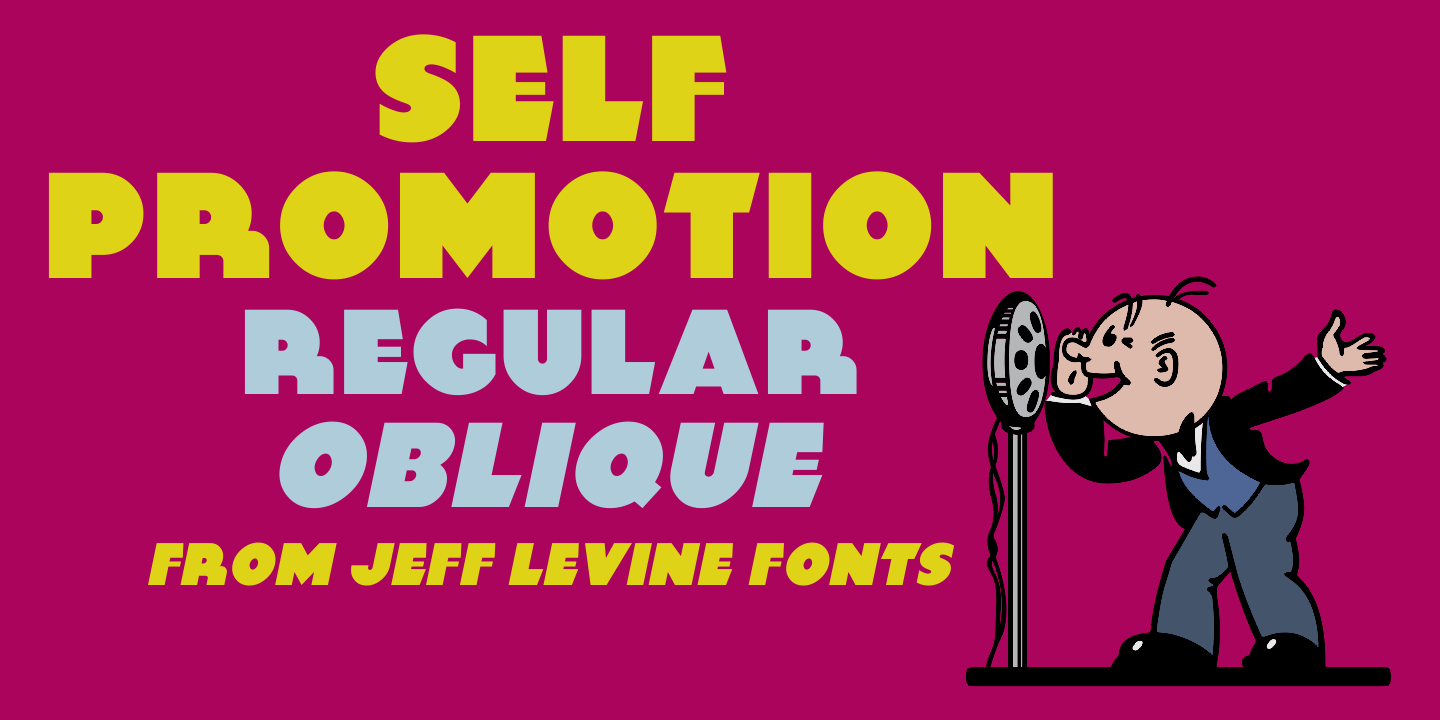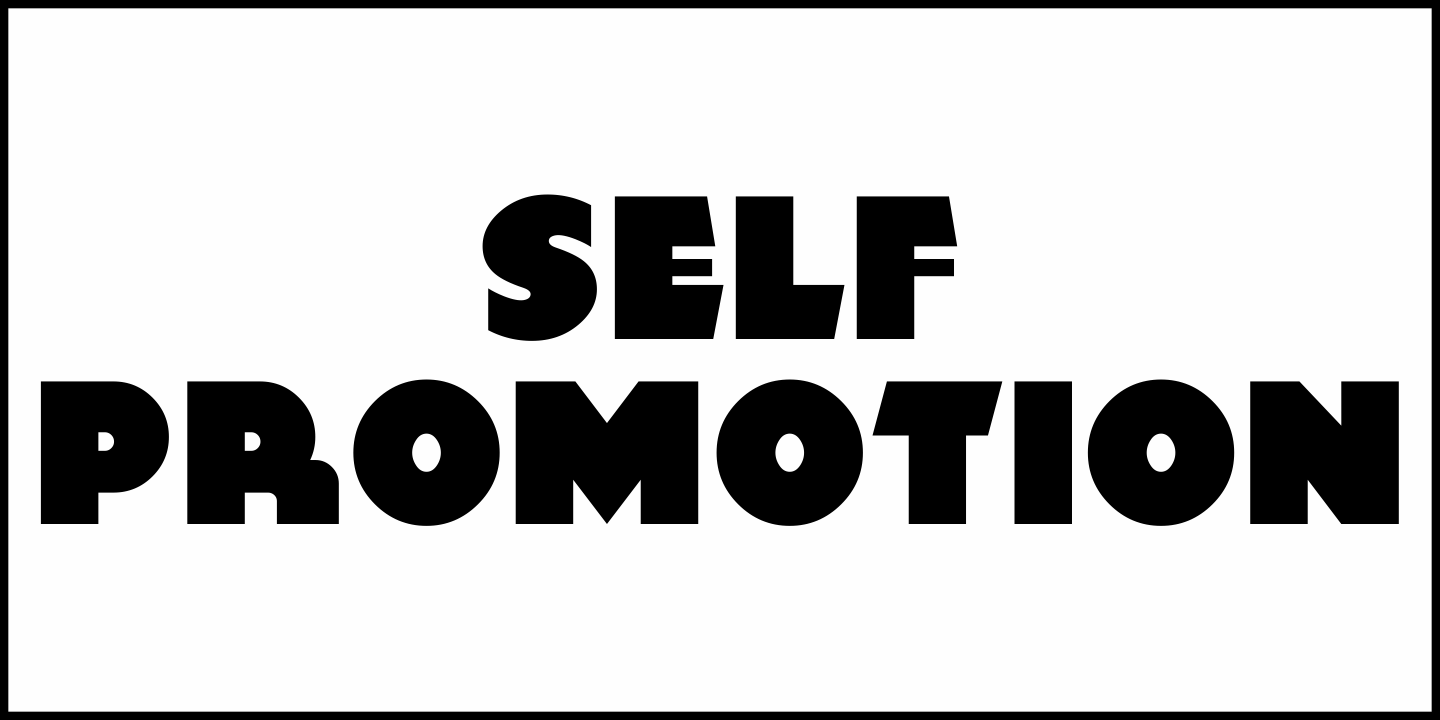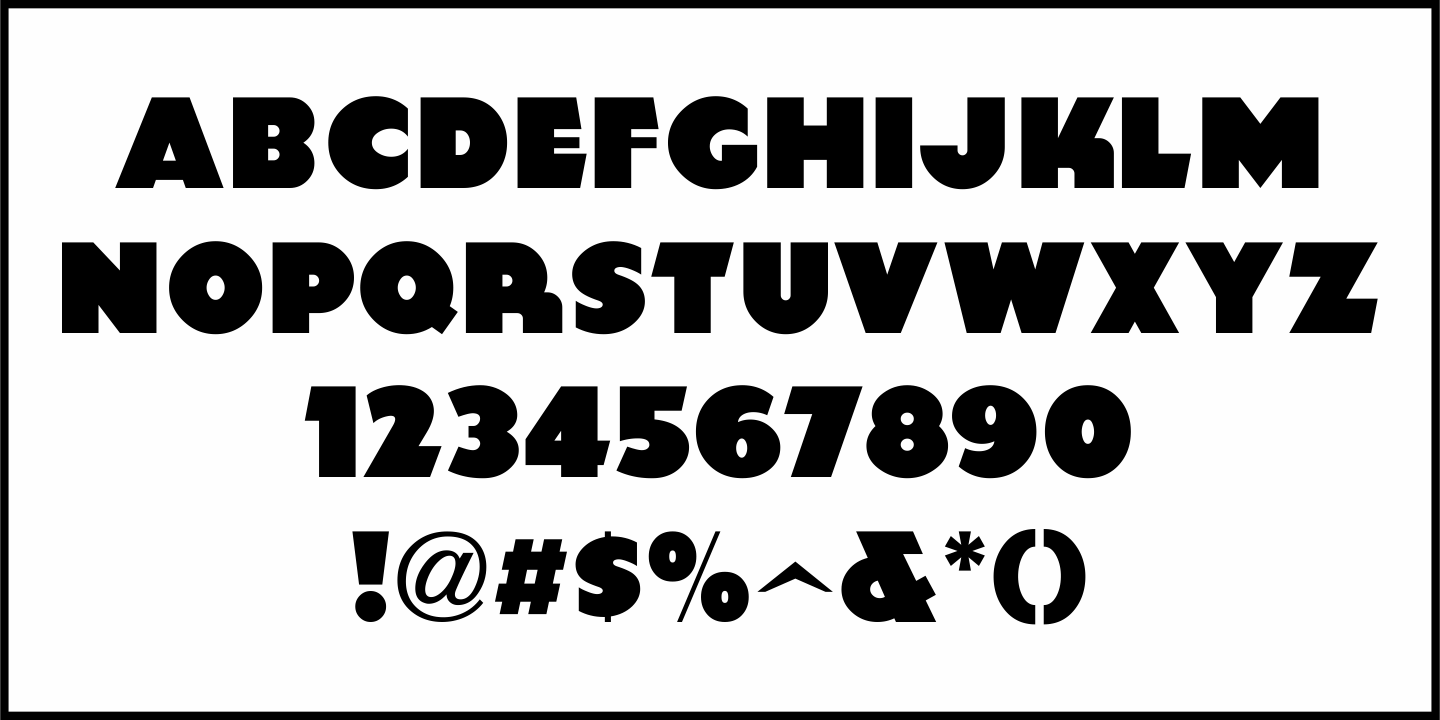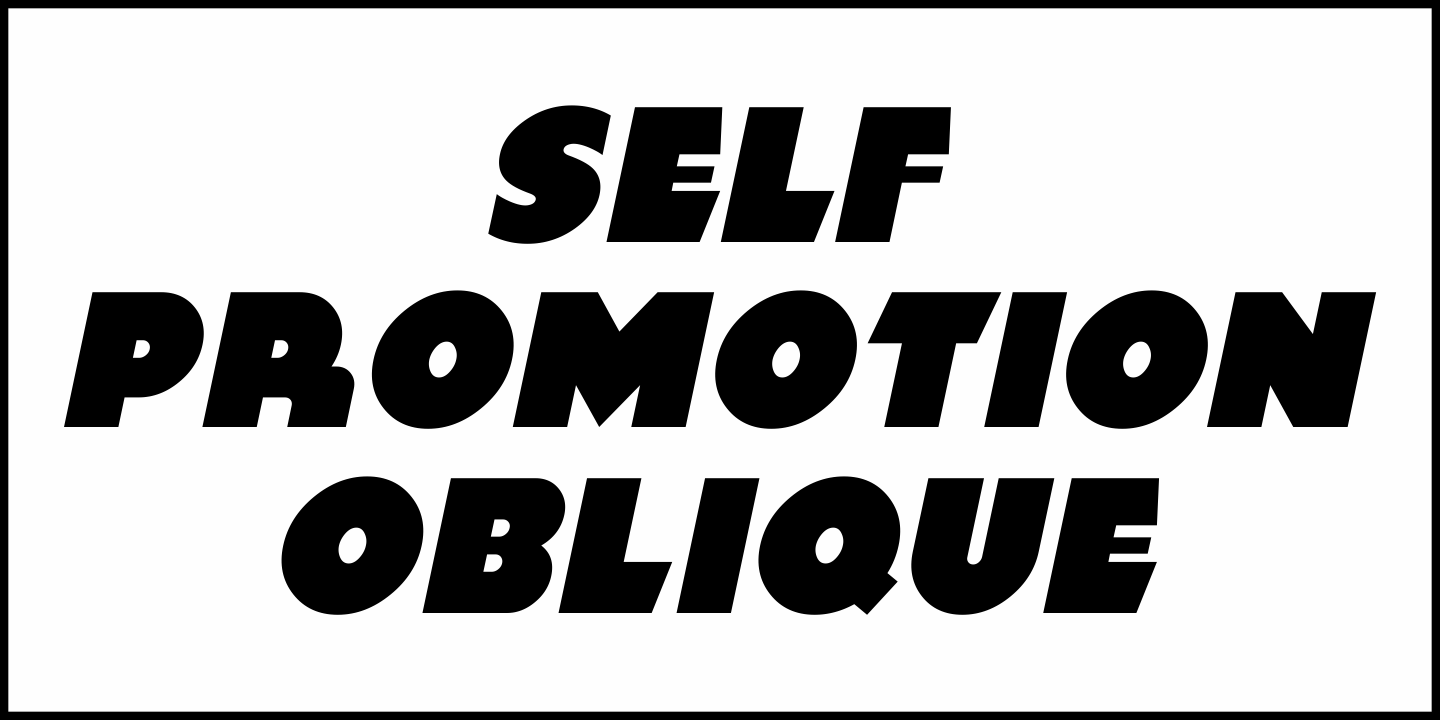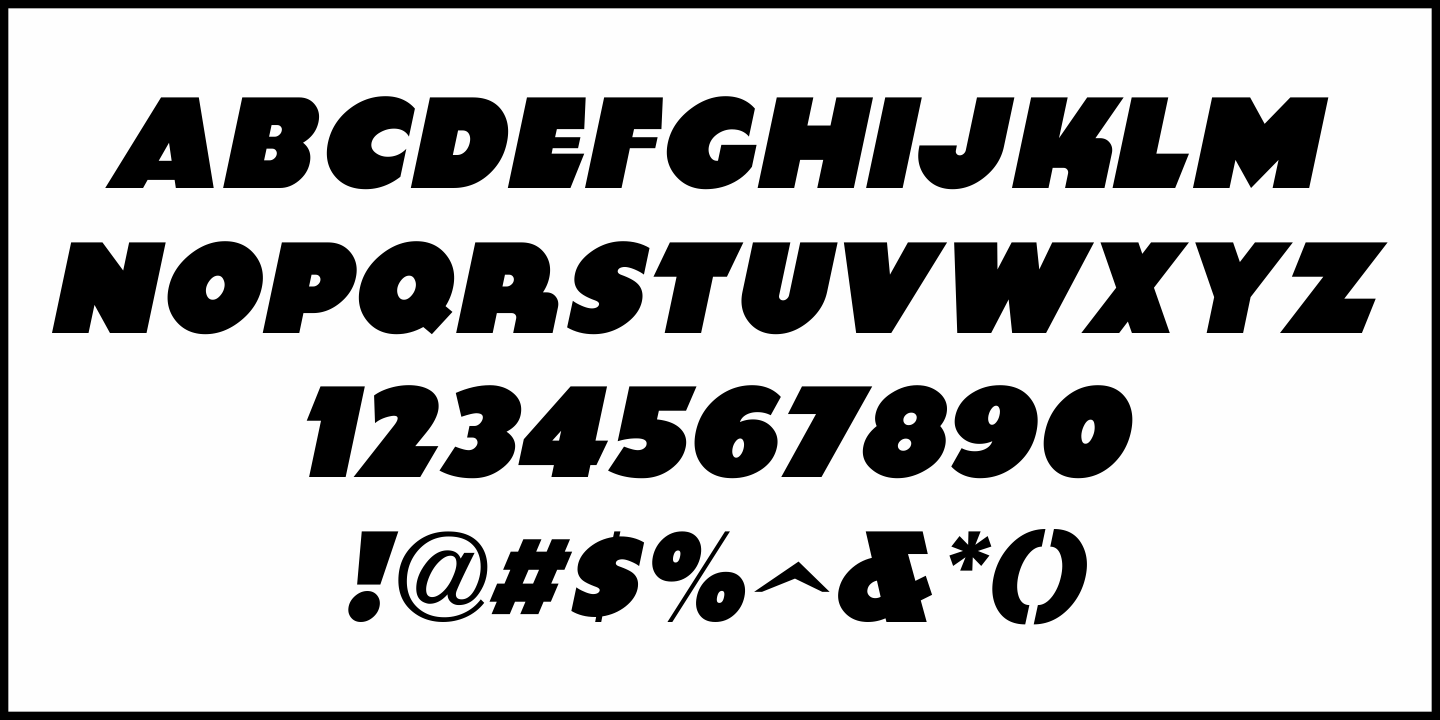
Self Promotion
The July 26, 1934 of the movie industry trade paper The Film Daily contained an ad for Paramount promoting its most recent releases.
Hand lettered in an ultra bold Art Deco sans serif style, it was the working model for Self Promotion JNL, which is available in both regular and oblique versions.
Self Promotion JNL Regular by Jeff Levine Fonts